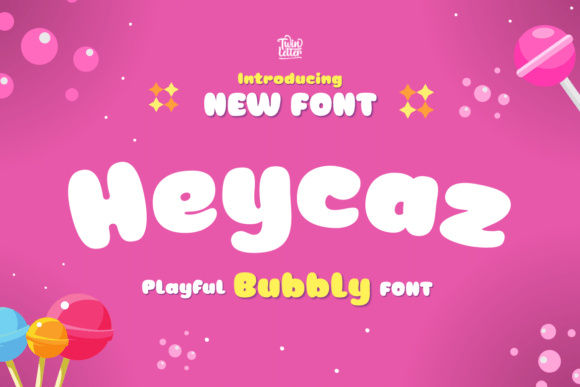
Journey into the realm of captivating typography with Heycaz Font, the ultimate display font crafted to ignite your creativity and leave a lasting impression on your audience.
Immerse yourself in the world of unique characters and mesmerizing letterforms, meticulously designed to evoke a sense of playfulness and joy. Whether you're a seasoned designer or just starting your creative journey, Heycaz Font is your passport to unlocking extraordinary visual experiences.
Picture this: Your poster title leaps off the page, commanding attention with its quirky charm and infectious energy. Heycaz Font transforms ordinary words into works of art, captivating the eyes of all who behold them.
Envision your social media posts, branding materials, and website headlines radiating with personality and flair. Heycaz Font's playful nature is the perfect antidote to the mundane, injecting life and vibrancy into your digital presence.
Elevate your designs to new heights with Heycaz Font. Its versatility knows no bounds, seamlessly adapting to a myriad of projects, from logos and brochures to t-shirt designs and packaging. Unleash your imagination and watch as your creations come alive with character and charm.
Don't settle for ordinary fonts that blend into the background. Embrace the power of Heycaz Font and let your designs shine with individuality and style. Step into a world where typography takes center stage, where every letter tells a story, and every word captivates the imagination.
Welcome to the world of Heycaz Font, where creativity knows no limits. Dive in today and unlock the potential of your designs.